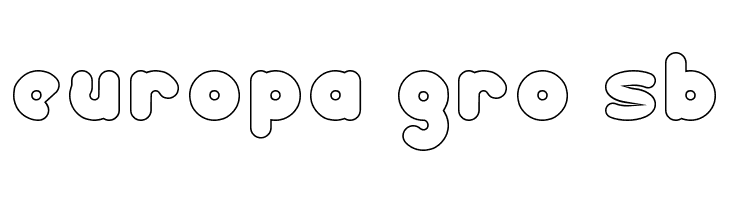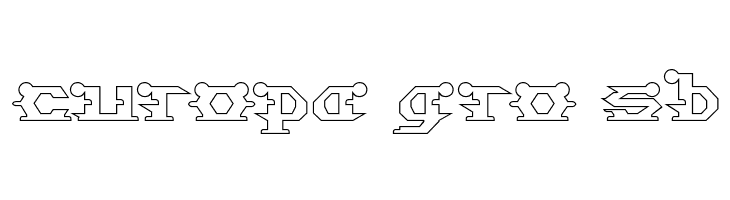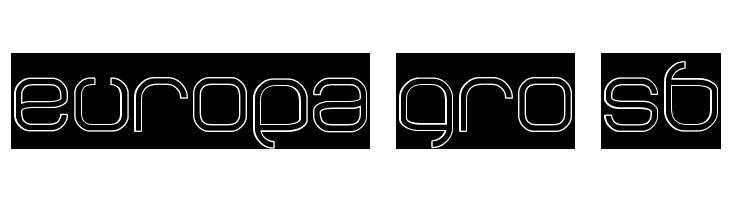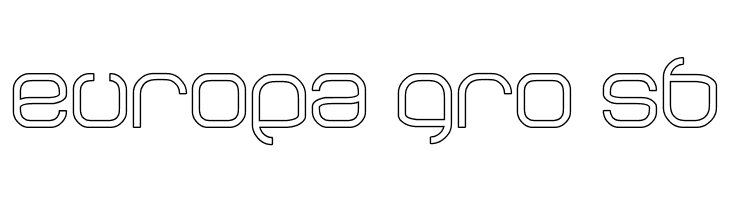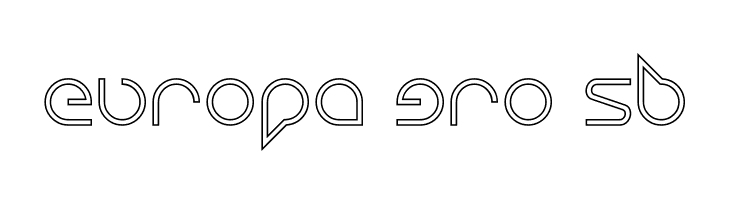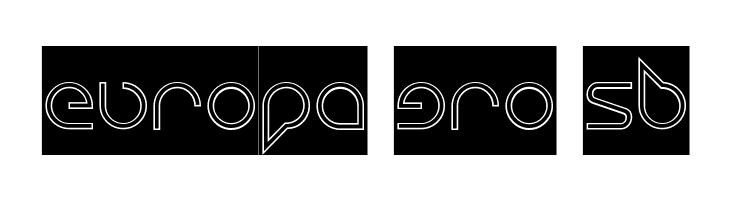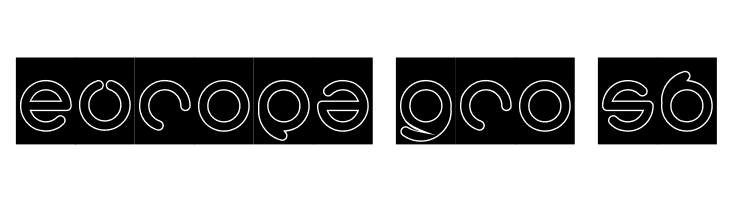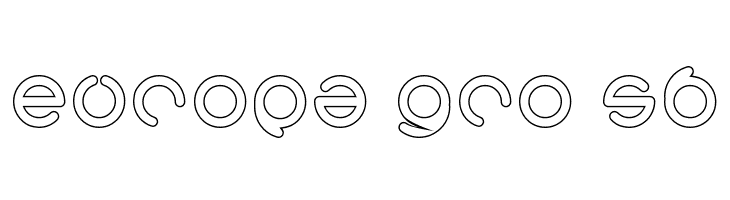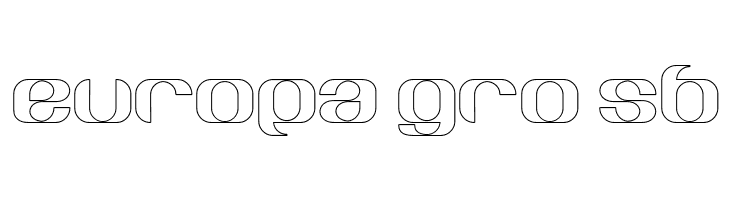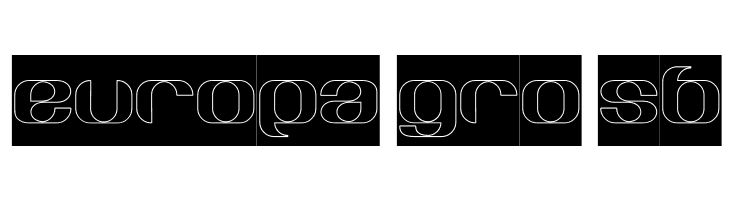
A playful, hollow font with rounded, bubbly characters.
A futuristic, geometric hollow font with bold outlines and sharp edges.
A modern, hollow, inverse font with geometric and futuristic design.
A futuristic, hollow, and geometric font with a unique outlined style.
A futuristic hollow font with geometric and angular elements.
A modern, hollow, geometric font with a futuristic outline style.
A hollow, inverse, decorative font with a futuristic and abstract style.
A futuristic, hollow font with geometric and symmetrical design.
A futuristic, hollow, geometric font with a modern aesthetic.
A modern, hollow font with smooth curves and a decorative style.